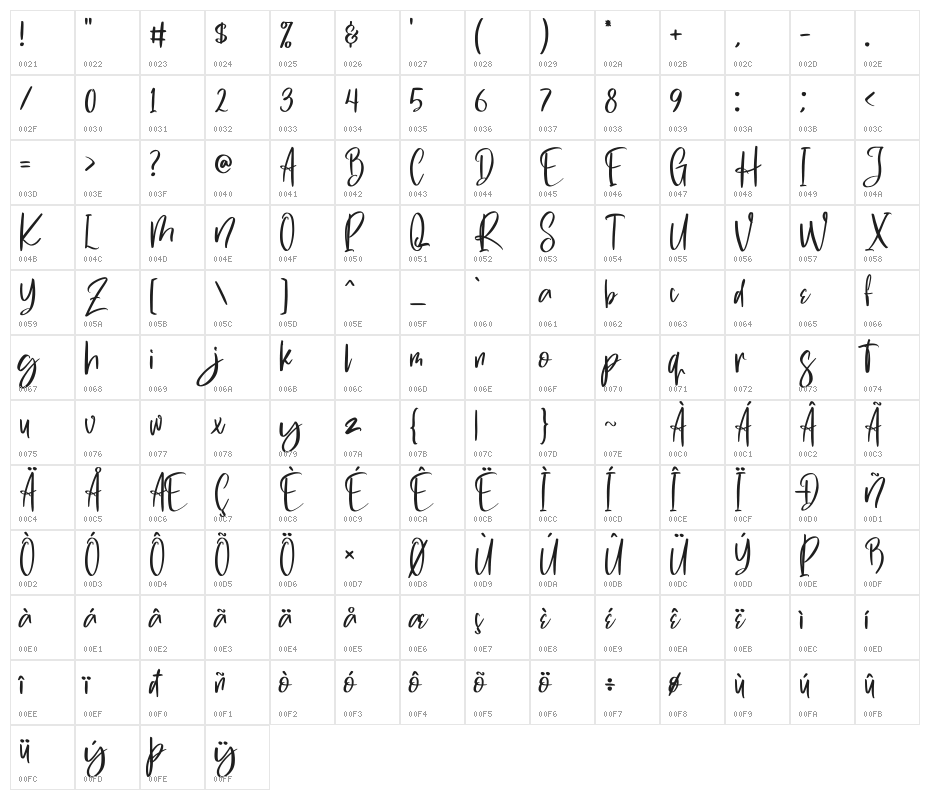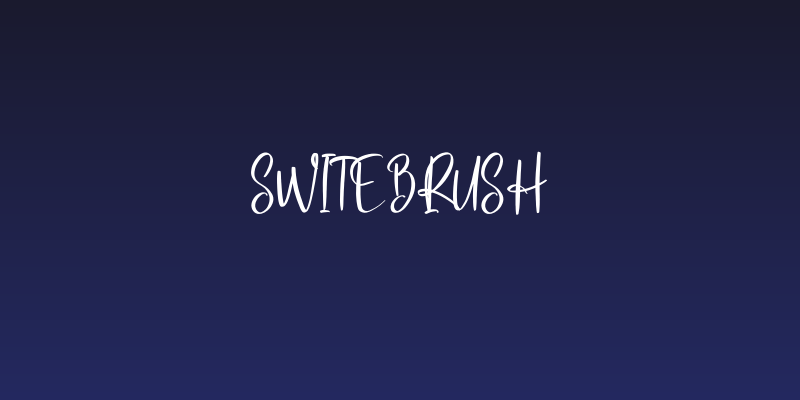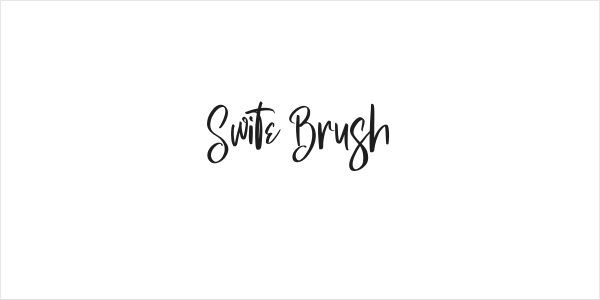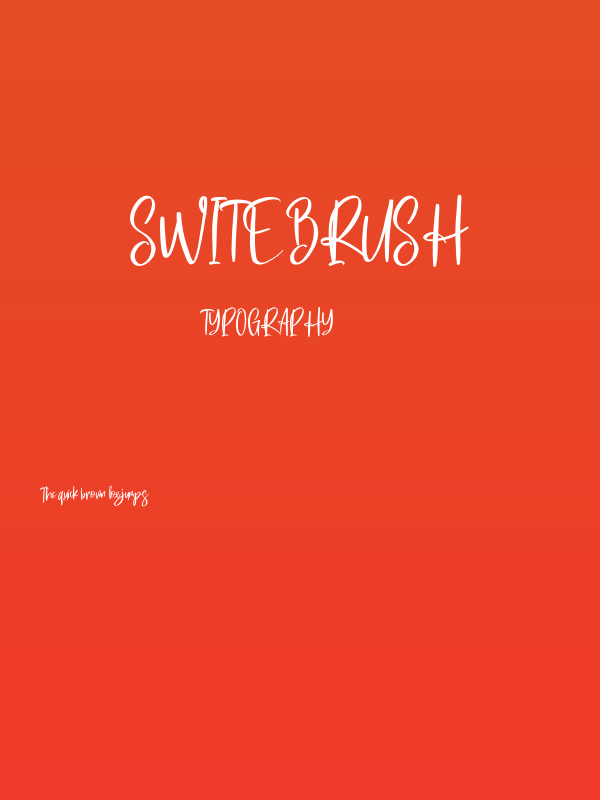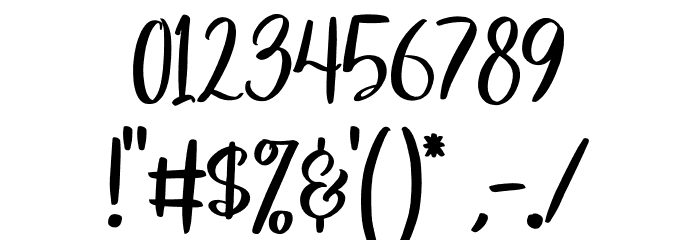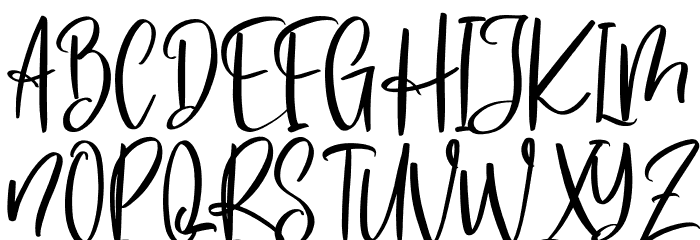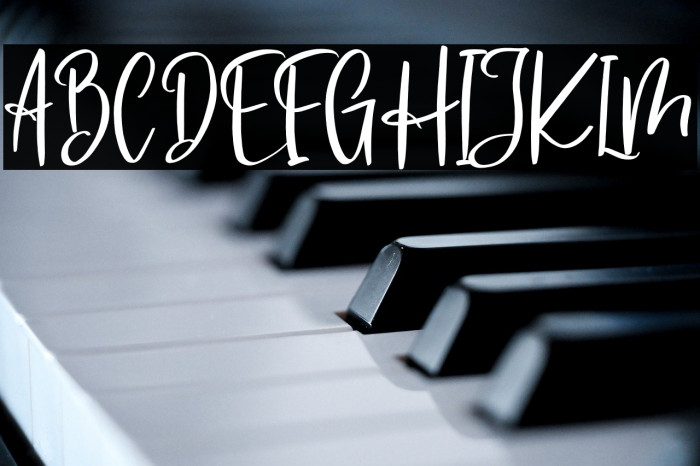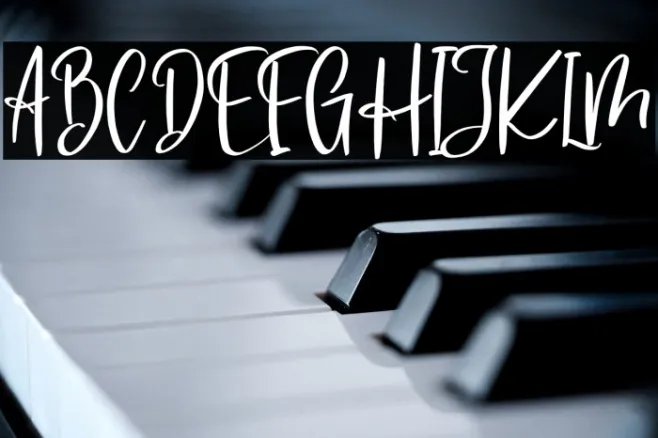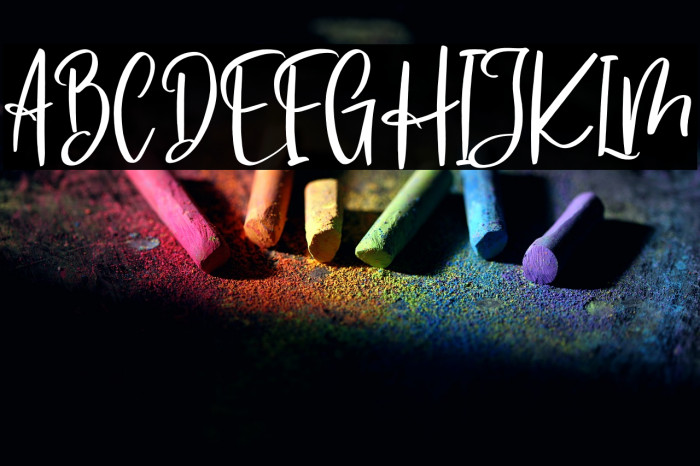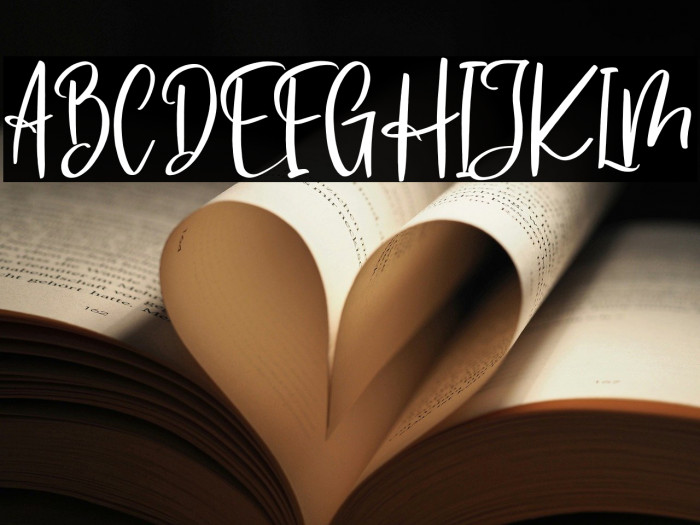
Swite Brush Font
Swite Brush Description
This font exudes a lively and energetic vibe, characterized by its bold, sweeping brush strokes that give it a handwritten appearance. The letters are slightly slanted, adding a sense of motion and fluidity. The uppercase and lowercase letters maintain a consistent style, with exaggerated curves and loops that enhance its playful nature. The numbers and special characters are equally expressive, ensuring a cohesive look across all text elements. This font is perfect for projects that require a personal touch, such as invitations, greeting cards, or branding materials that aim to convey creativity and warmth.
| Proposed Projects | Ideal for invitations, greeting cards, branding materials, and creative projects. |